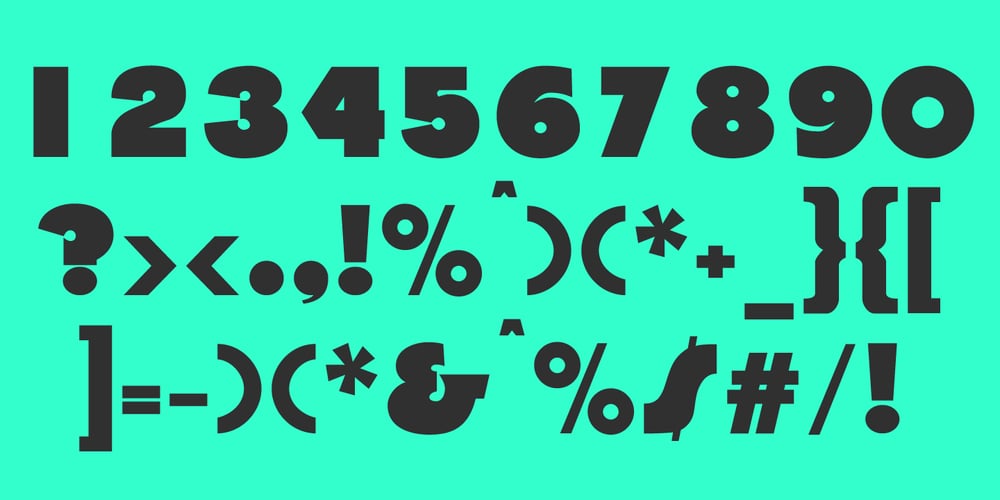
Churchward Font Family was designed by Jordan Davies and published by Wooden Type Fonts. Churchward contains 1 styles and family package options. Great ultra bold sans serif font and demi bold wonderful for display.